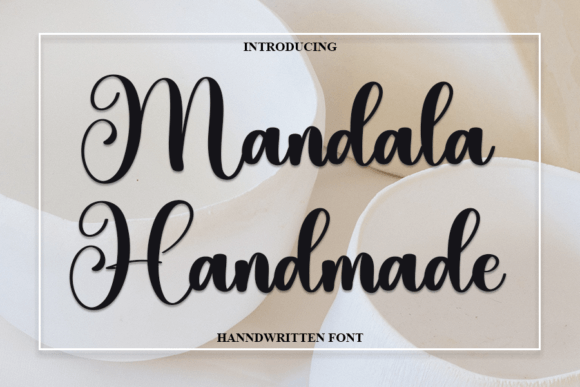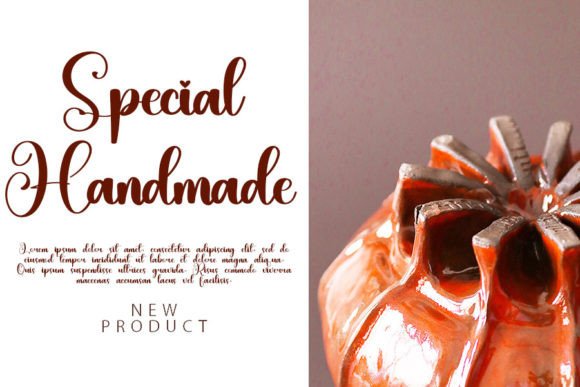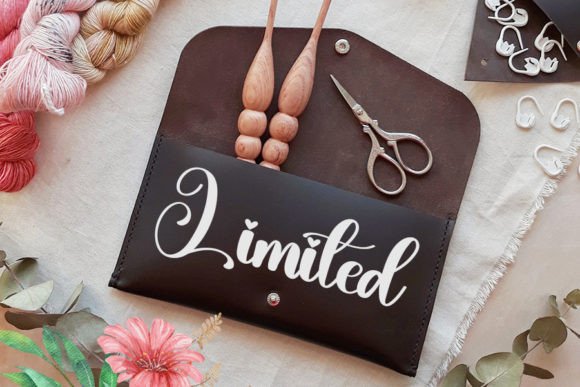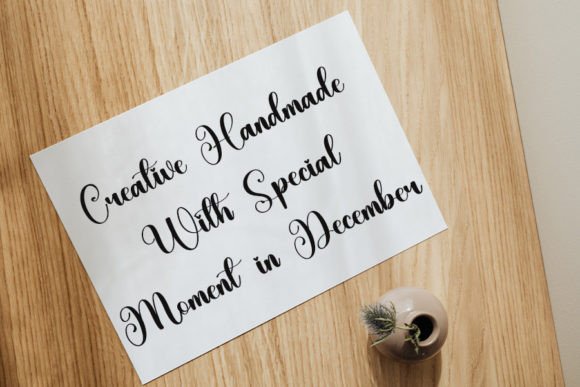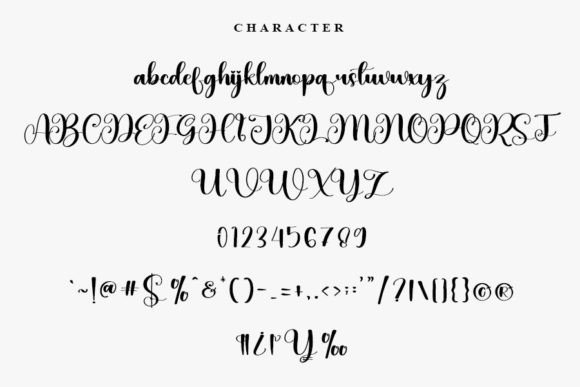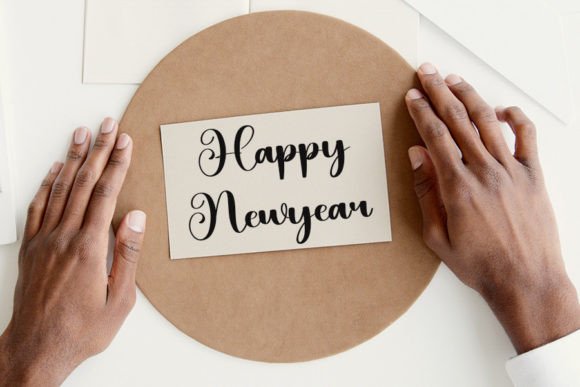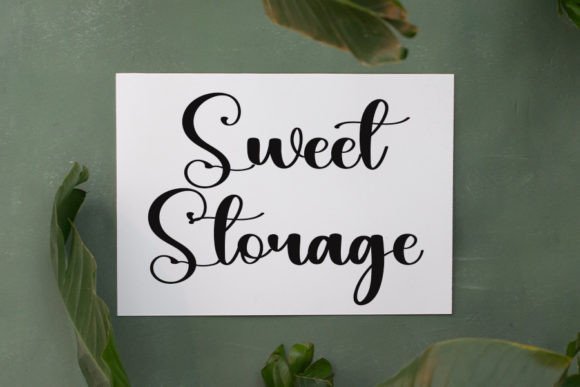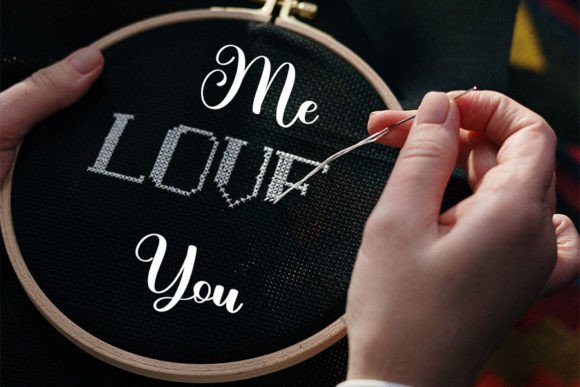
Mandala Handmade Font
About Mandala Handmade Font
Mandala Handmadefont is a casual and relaxed script designed to bring a warm and inviting touch to your creative projects. Its versatile style makes it an excellent choice for a wide range of uses, from wedding invitations to social media graphics. Whether you are working on personal crafts or professional branding, Mandala Handmadefont helps your designs stand out with charm and elegance.
Elegant and Relaxed Style
This font features flowing strokes that mimic natural handwriting, creating a friendly and approachable look. Mandala Handmade adds a personal touch to wedding invitations, making them feel heartfelt and unique. Its relaxed yet stylish design also works beautifully on stationery, giving everyday paper goods an artistic flair that captures attention.
Perfect for Social Media and Branding
Mandala Handmadefont excels in digital formats, especially for eye-catching social media posts and branding materials. It adds personality and warmth, helping your content connect with audiences in a genuine way. Whether you’re designing logos, banners, or promotional graphics, this font enhances your visual storytelling with its handwritten charm.
Versatility Across Projects
From elegant invitations and thank you cards to creative posters and labels, Mandala Handmadefont adapts seamlessly to various design needs. It’s ideal for anyone looking to add a soft, handcrafted feel to their work without sacrificing modern style. This balance makes it a valuable tool in any designer’s font collection.
Why Choose Mandala Handmade Font?
Mandala Handmadefont combines casual elegance with versatile functionality. It allows designers and creatives to infuse their projects with personality and warmth, perfect for both formal and informal occasions. With Mandala Handmade, your designs will always have that special handcrafted touch that captures attention and leaves a lasting impression.